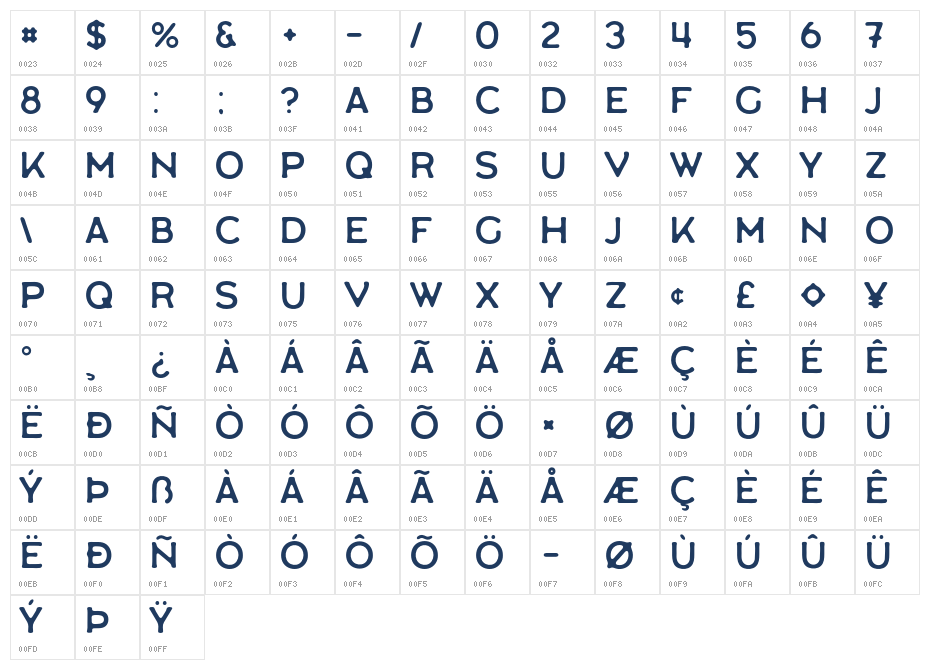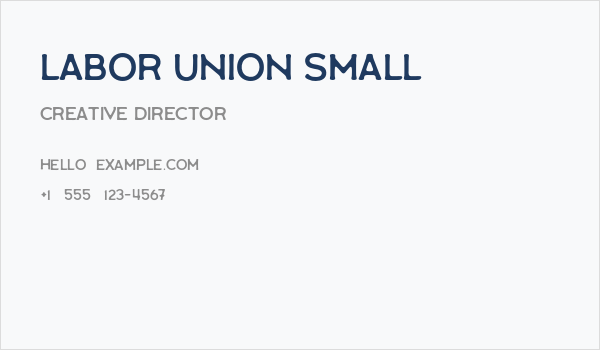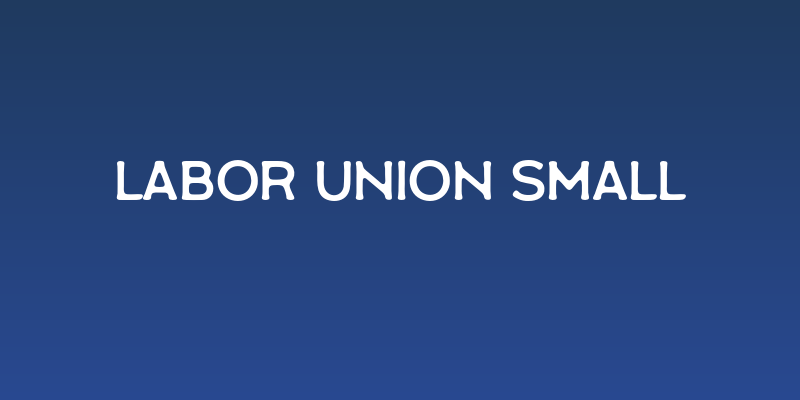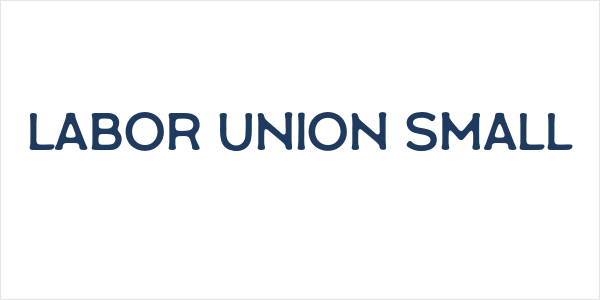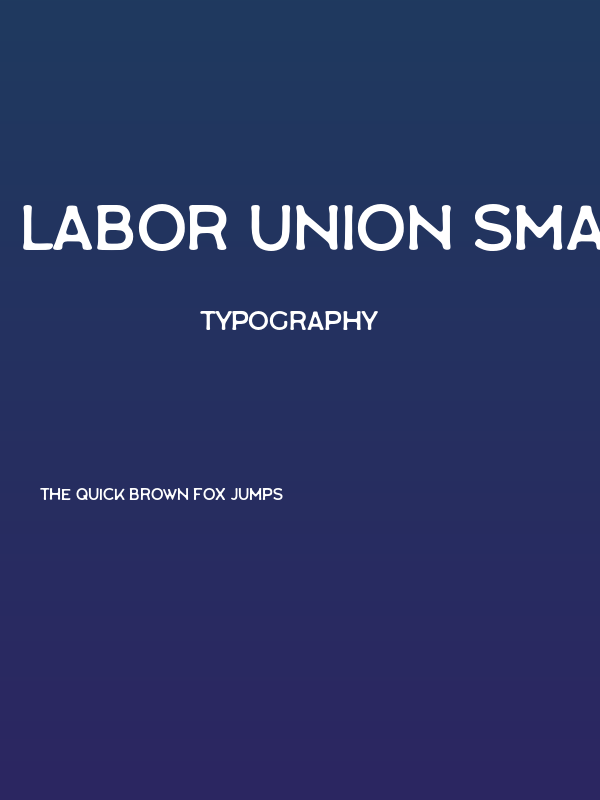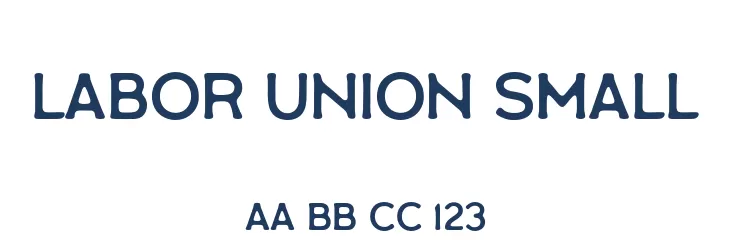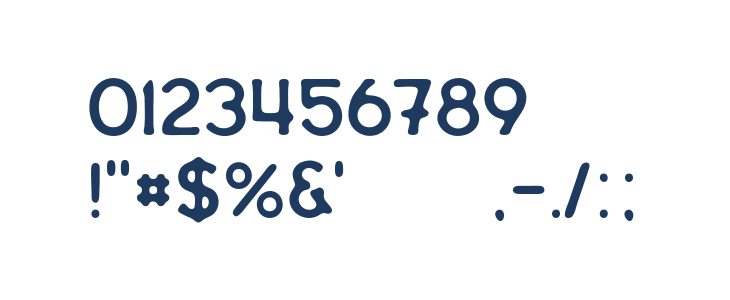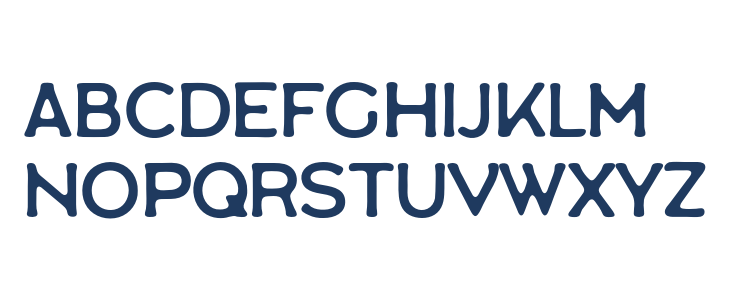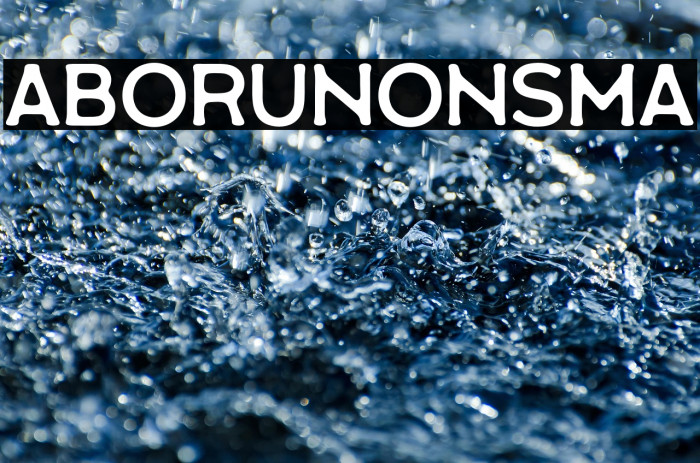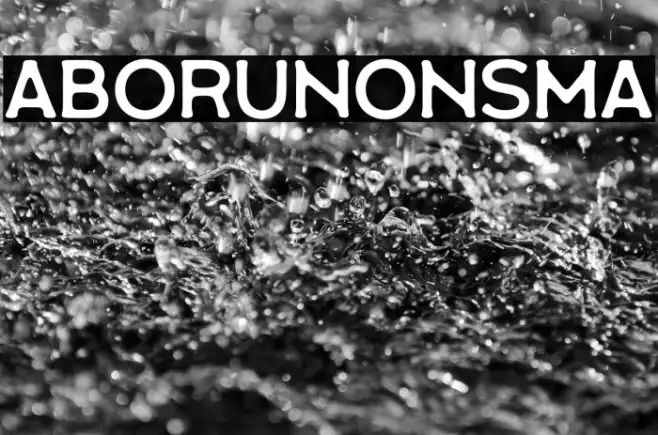
Labor Union Small Font
Labor Union Small Description
A playful, rounded sans-serif font with a casual and friendly appearance.
| Overall Style | Casual, Friendly, Modern |
| Use Case | Headlines, Body text, Logos, Children's media |